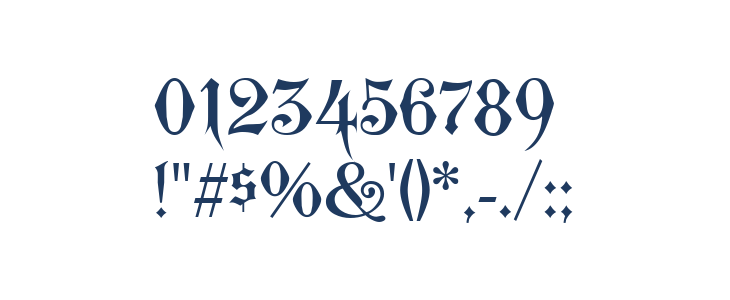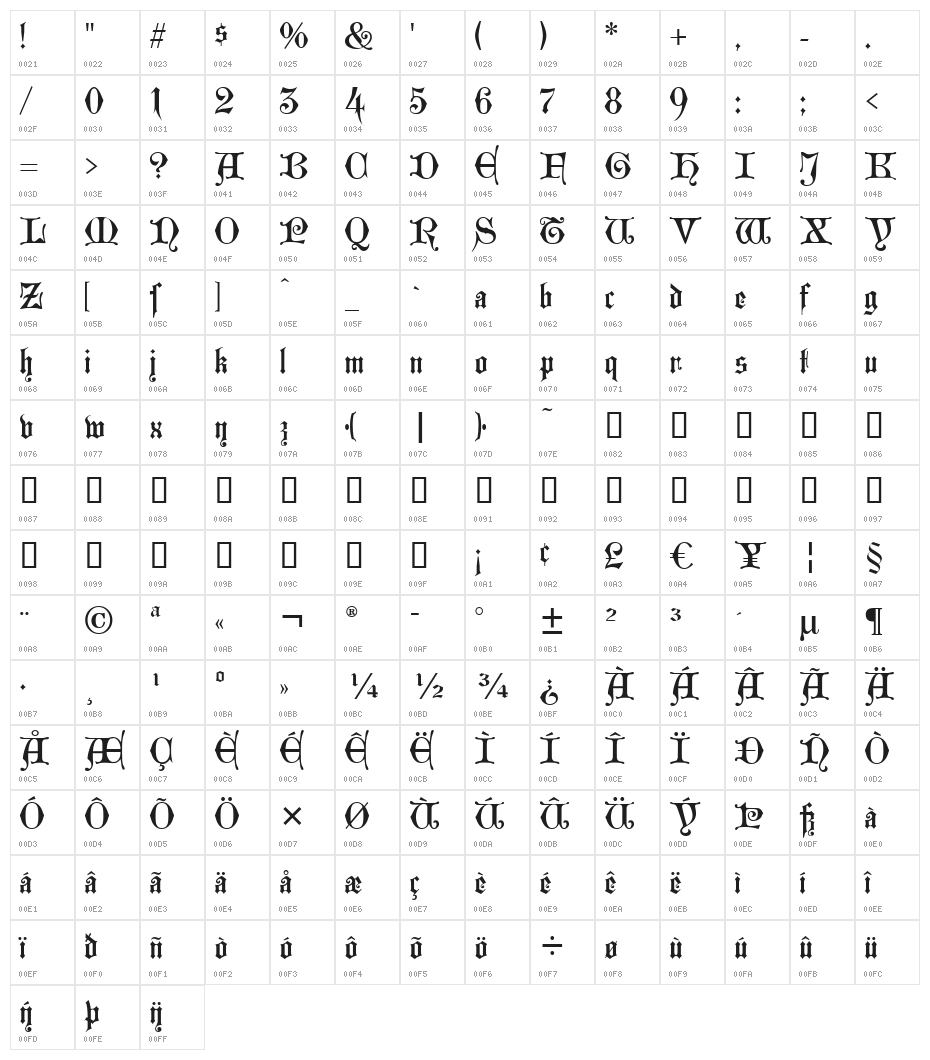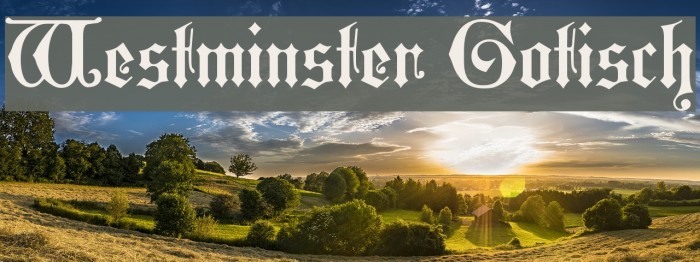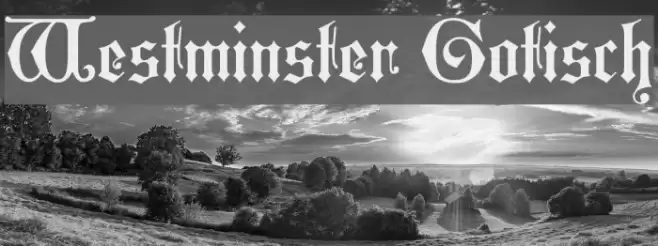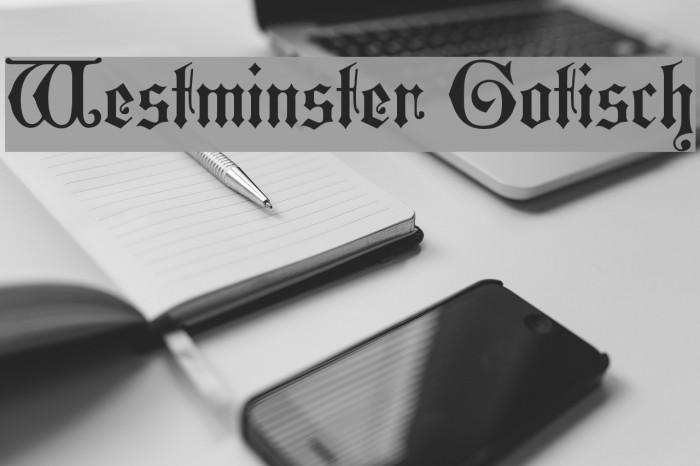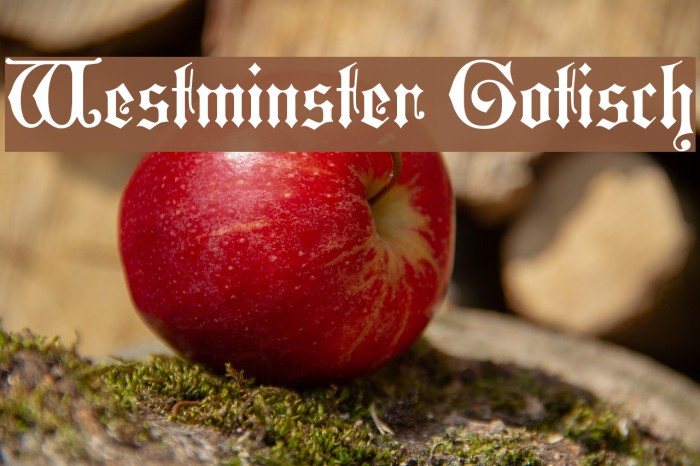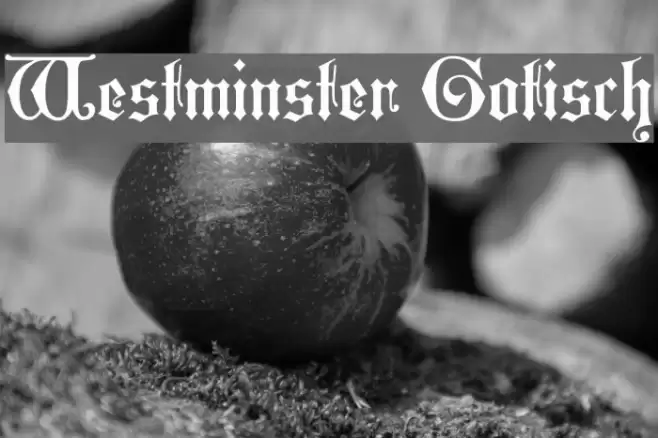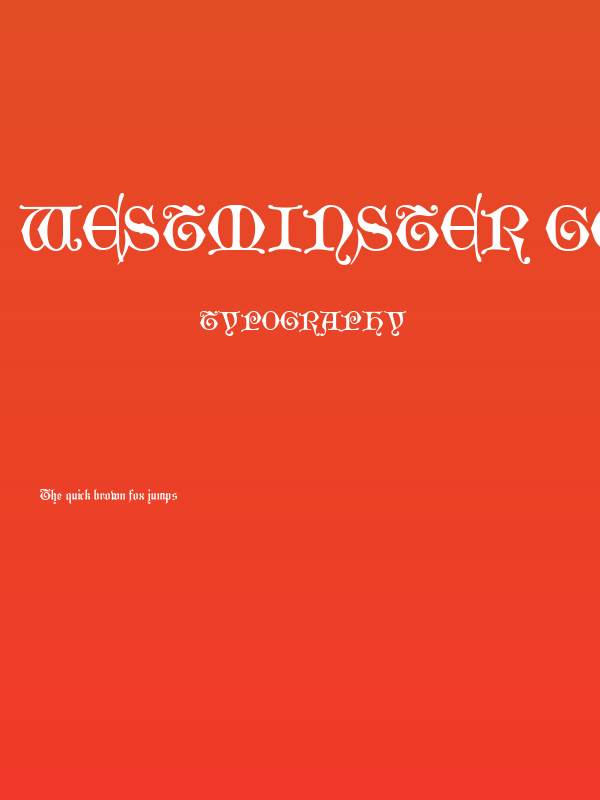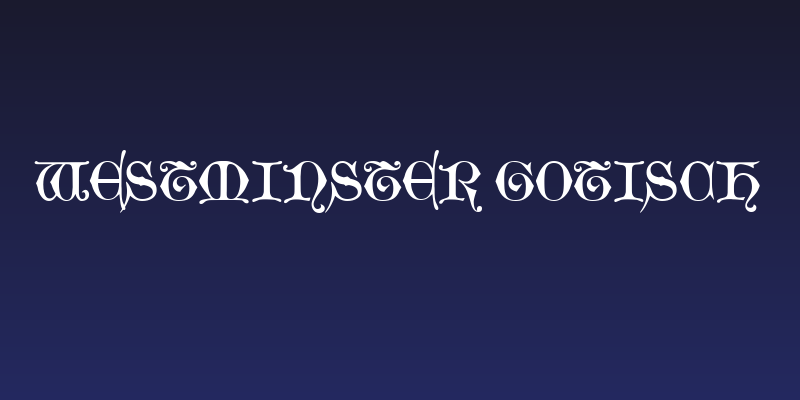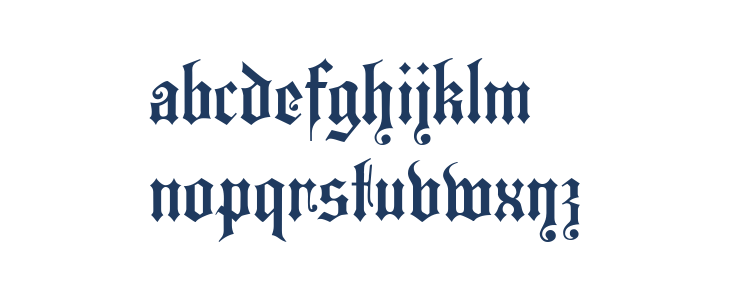
Westminster Gotisch Font
Westminster Gotisch Description
This font embodies a classic Gothic style with intricate, sharp edges and elaborate flourishes. The uppercase letters are characterized by their ornate and angular design, reminiscent of medieval script. The lowercase letters maintain a similar aesthetic, with a strong emphasis on vertical strokes and pointed serifs. Numbers and special characters follow the same decorative theme, adding a cohesive and historical feel to the overall typeface. The font's distinctiveness lies in its ability to convey a sense of tradition and formality, making it ideal for projects that require a touch of elegance and historical reference.
Overall StyleVintage
Proposed ProjectsIdeal for historical documents, invitations, book covers, and themed event materials.